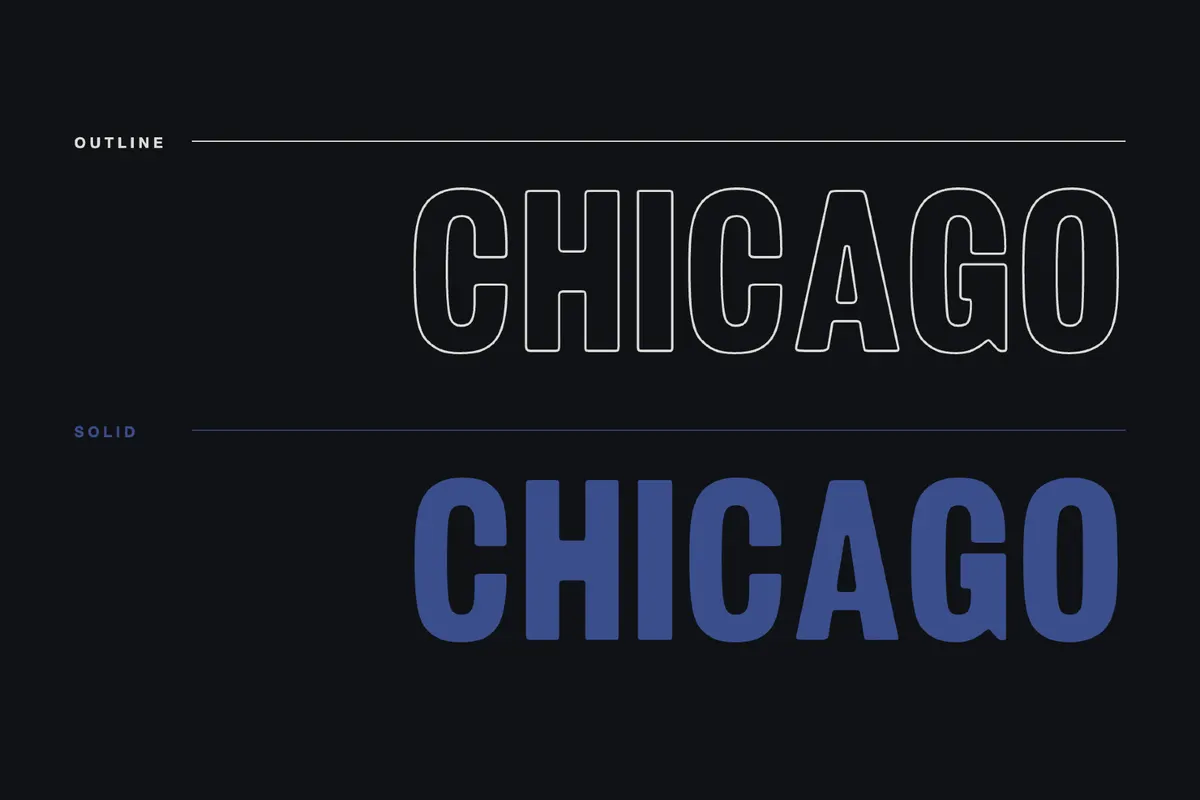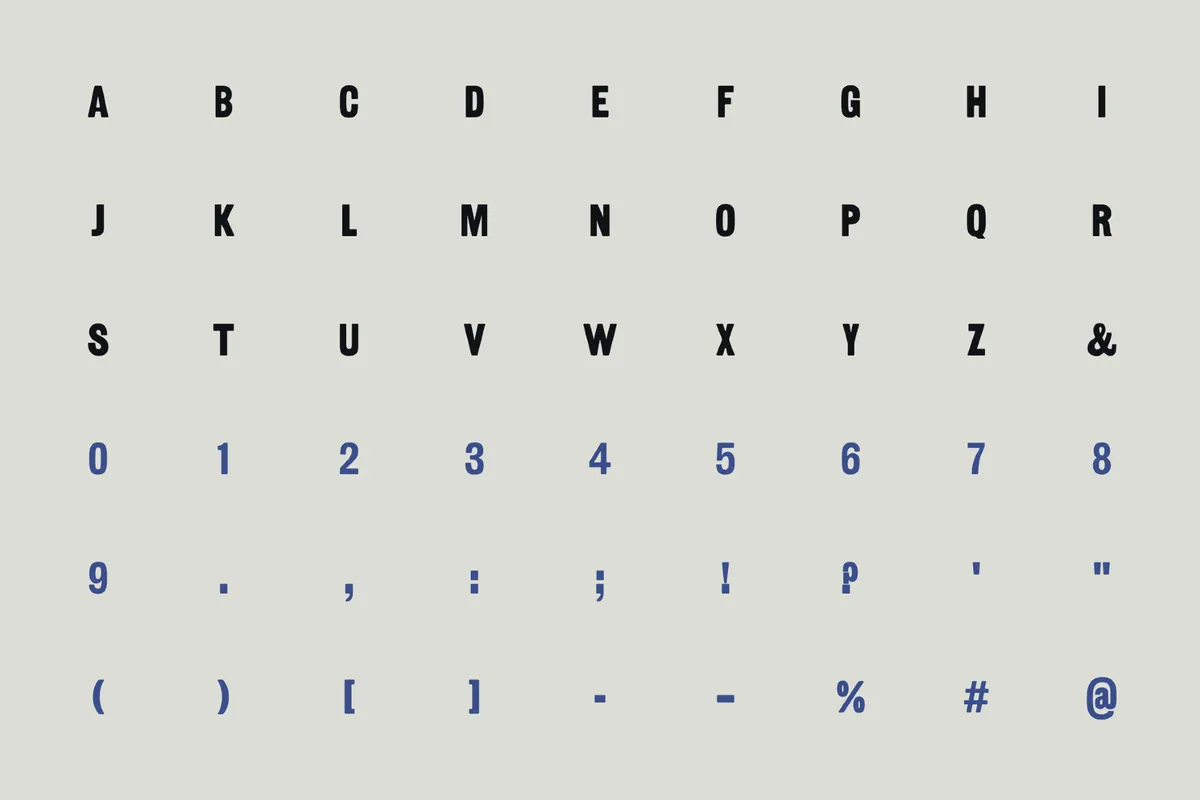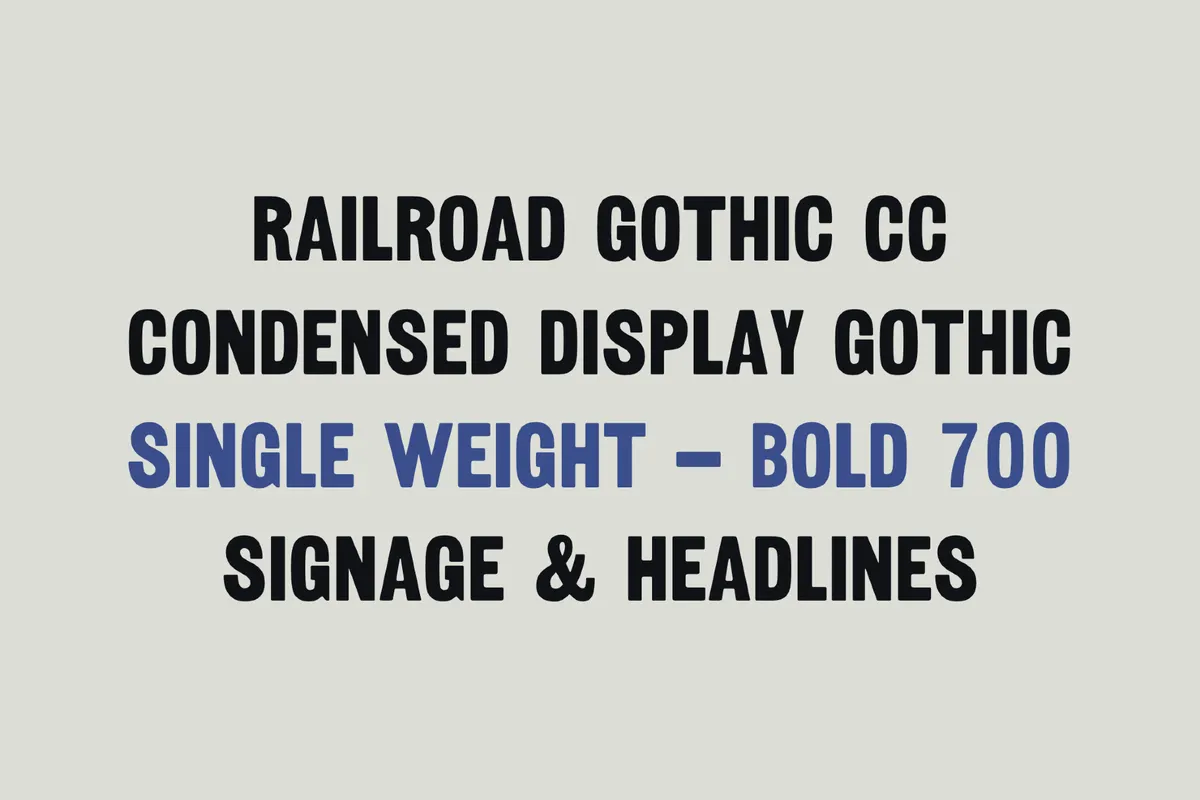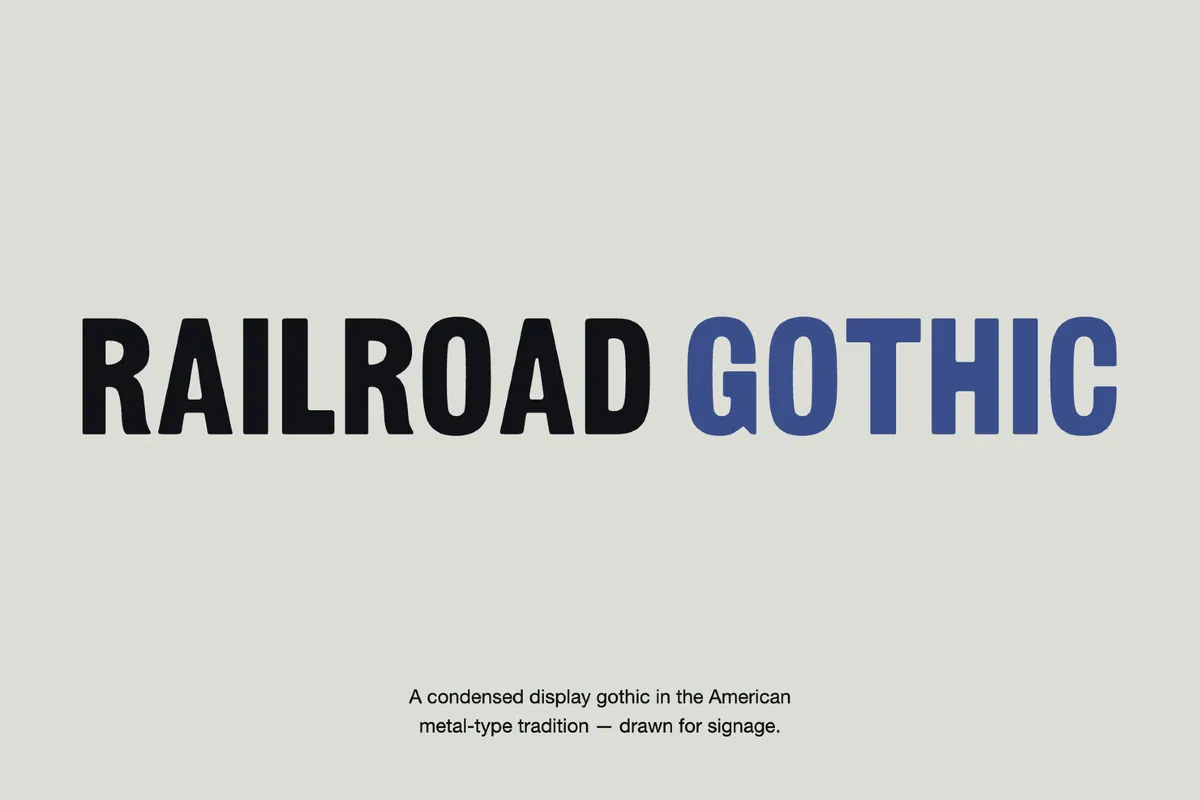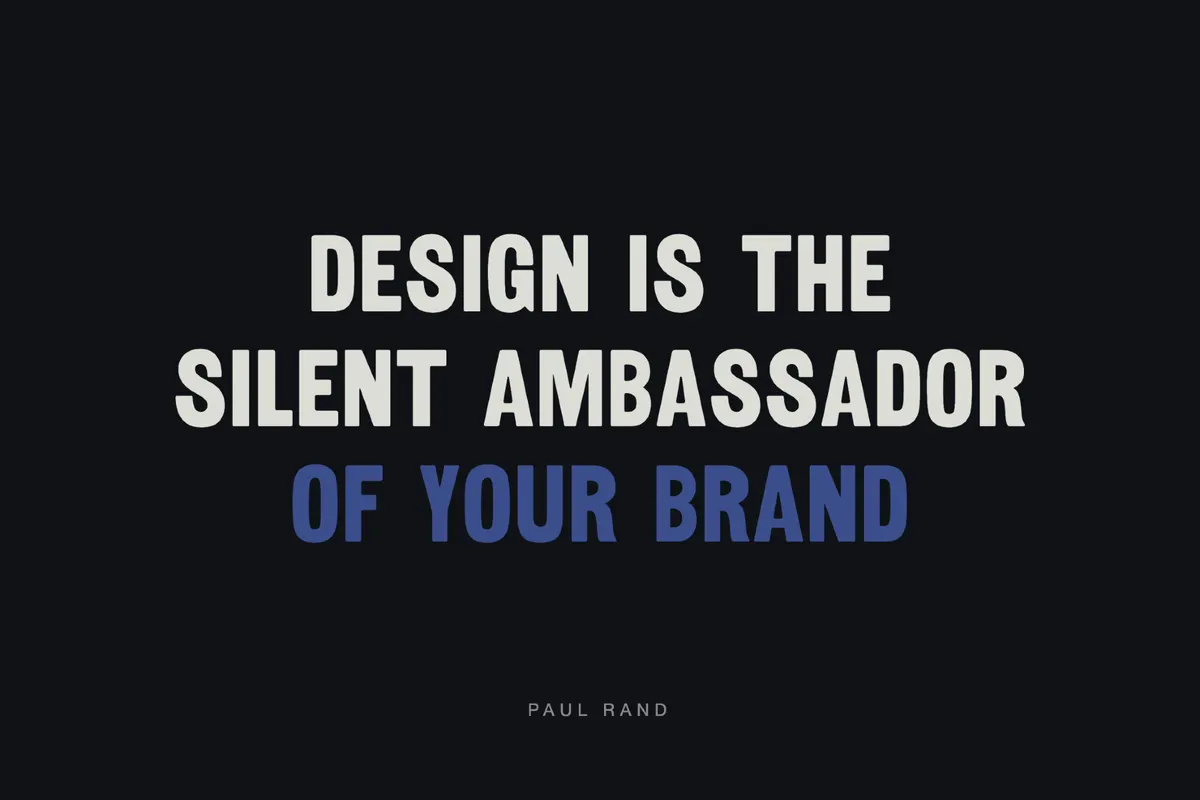
Railroad Gothic CC revives American Type Founders' turn-of-the-century Railroad Gothic, a big, brash condensed sans cut for railway signage and screaming newspaper headlines around 1906. The digitisation keeps the original metal type's rough, uneven character intact rather than smoothing it out, in a single heavy weight.
Works well for poster headlines, sports and event branding, apparel prints, packaging, brewery labels, industrial and heritage identities, banners, wayfinding, logo work, and social media graphics.
• uppercase and lowercase letters;
• numbers, punctuation, and symbols;
• multilingual support across the extended Latin script.